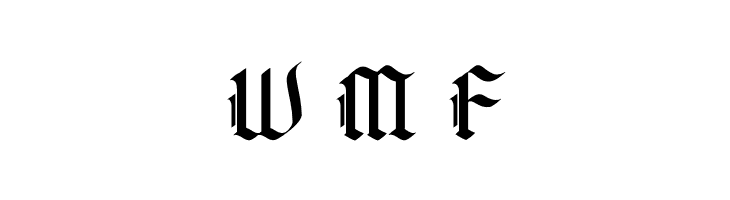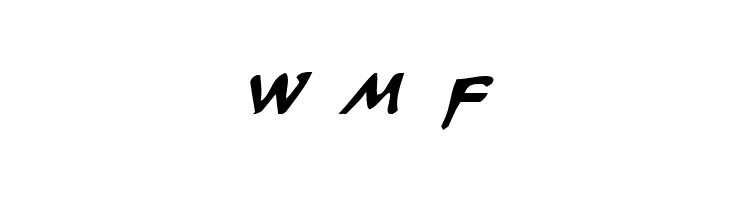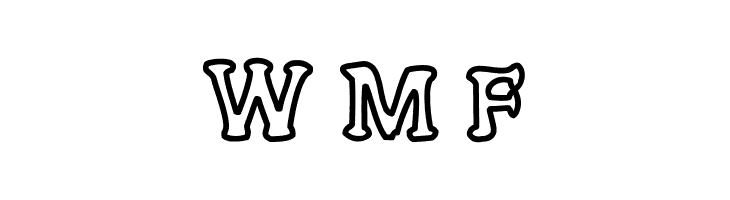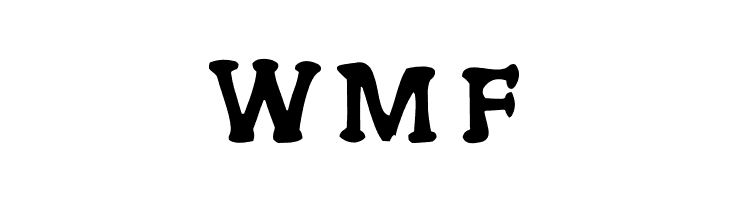
• Arbuckle Inline NF
A bold, geometric font with inline detailing for a striking visual impact.
• Arbuckle Remix NF
A bold, geometric font with retro and art deco influences.
• ArbuckleInlineNF
A bold, inline font with geometric and playful characteristics.
• ArbuckleRemixNF
A bold, geometric font with playful and dynamic character designs.
• ArcadeClassic
A pixelated font inspired by retro arcade games, featuring blocky, grid-like characters.
• ARCH ENEMY
• Archaeological
Hand-drawn archaeological illustrations form each character in a decorative display style.
• ArchitectsDreamsDwa
A complex, architectural-themed font with blueprint-like details and geometric shapes.
• Architypogra
A bold, three-dimensional font with architectural and geometric influences.
• ArchitypograPsychodeliqu
A bold, 3D font with a playful, retro comic book style.
• Archking Free Trial
A bold, blackletter font with intricate, angular strokes and a historical feel.
• Arcitectura
A modern, geometric font with tall, narrow uppercase and rounded lowercase letters.
• AreHalfsEnough
A modern, geometric font with a unique cut-off style and consistent stroke width.
• Argents Free
A lively handwritten font with fluid, dynamic strokes and a playful style.
• Arghfunks Free Regular
A bold, cursive font with a lively and dynamic style.
• ARIAL RTS
• Ariendesse
• Ariendezze
A bold, playful font with a hand-drawn, artistic style.
• Arilon
A playful, hand-drawn font with dynamic, irregular strokes.
• Arilon Bold
A bold, playful font with a handwritten aesthetic and dynamic character shapes.
• Arilon Bold Italic